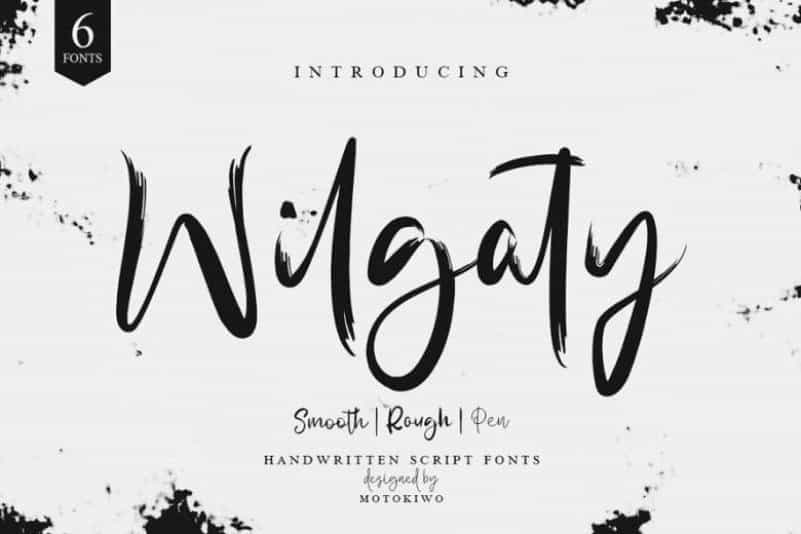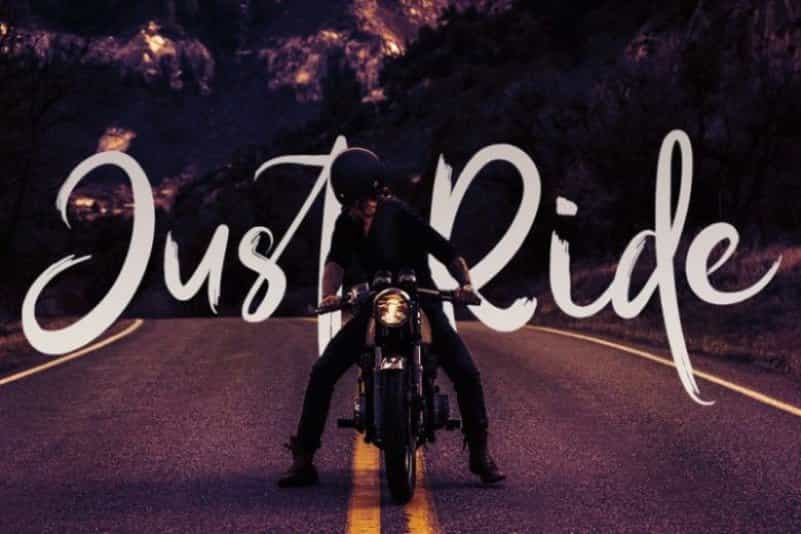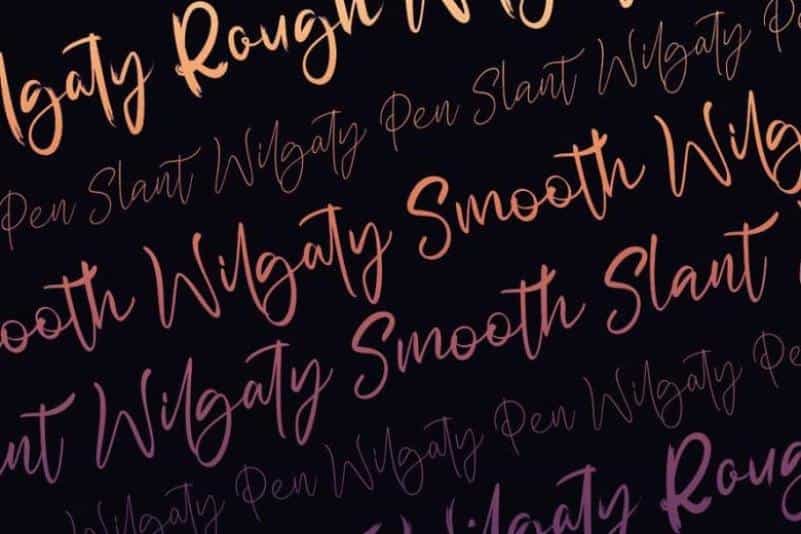
Discover Wilgaty Brush Font, part of the Brush collection—a versatile and unique font perfect for adding a personal touch to your projects. Download it for free and enjoy crafting designs with style, from invitations to social media posts. This font is available exclusively for personal use, giving you the freedom to create without limits. Unlock your creativity with Wilgaty Brush Font today!
Introducing Wilgaty Font. Wilgaty Brush Font is a handwritten script font with 3 stroke variants. It is the most suitable option to be consistent in using one writing style with different stroke styles. Willgaty is suitable for a large range of design projects, just choos. the stroke style that matches with your project.